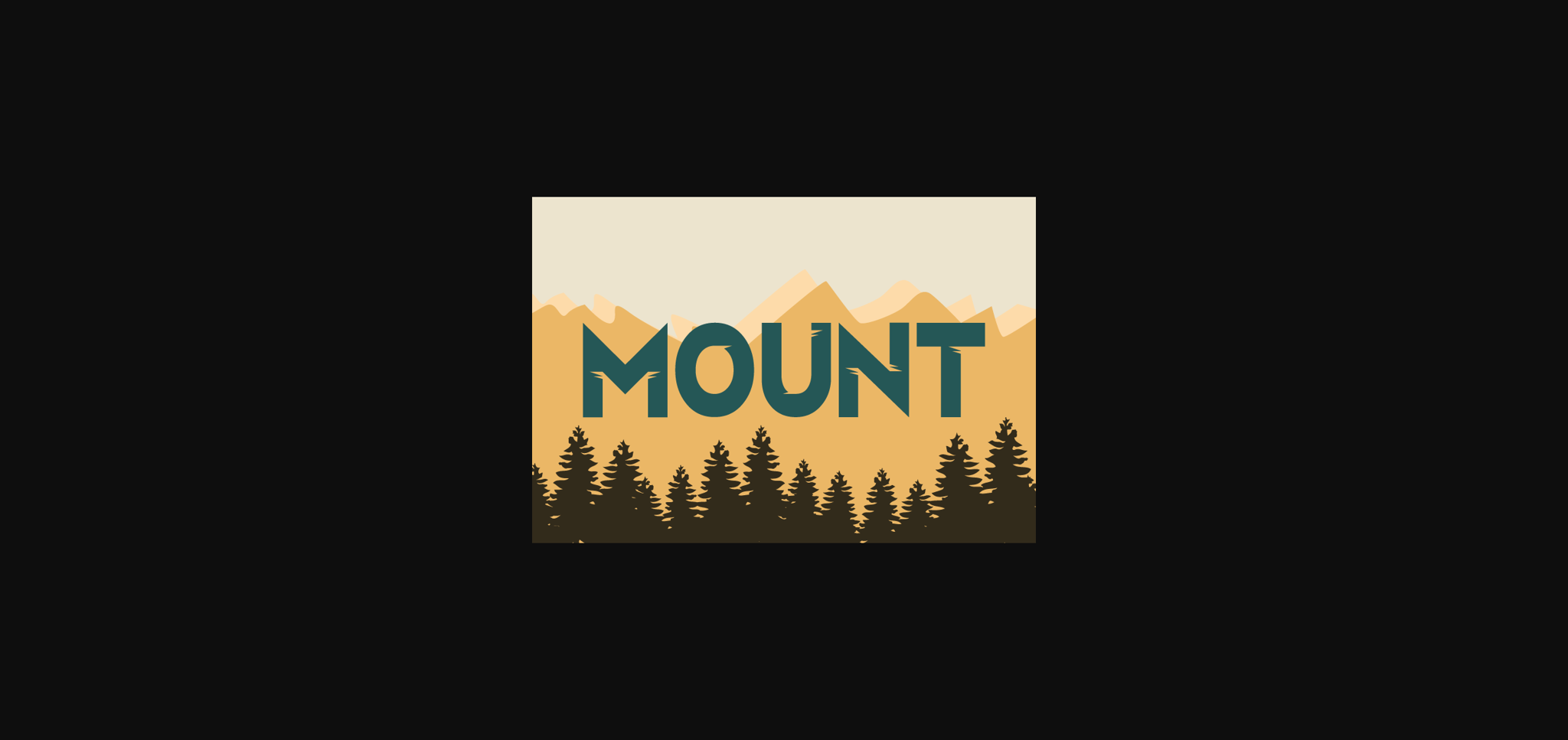
About Mount Font
Mount Sans Serif is a modern and sophisticated typeface that effortlessly balances simplicity with a touch of distinctiveness. Its clean lines and absence of serifs give it a sleek and contemporary aesthetic, making it ideal for a wide range of applications. The letterforms exude a subtle strength, drawing inspiration from the rugged elegance of mountain landscapes.